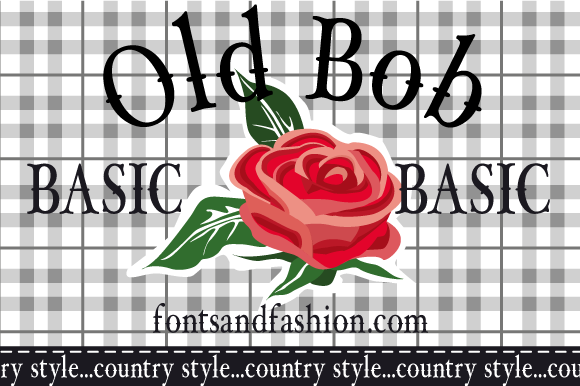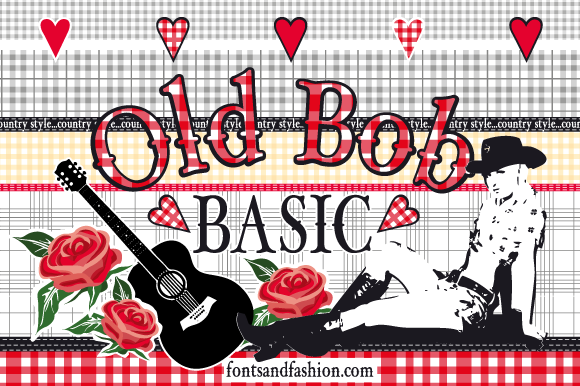
Introduction to Old Bob Font
Old Bob Basic is a cool, bold and country styled display font.
Whether you’re using it for crafting, digital designing, presentations or greeting cards making, it’s perfect .
Key Features of Old Bob Font
Why Choose Old Bob Font?
Old Bob Font offers exceptional quality and versatility, making it a valuable addition to your design toolkit. Whether you’re creating for personal projects or commercial use, Old Bob Font delivers professional results.